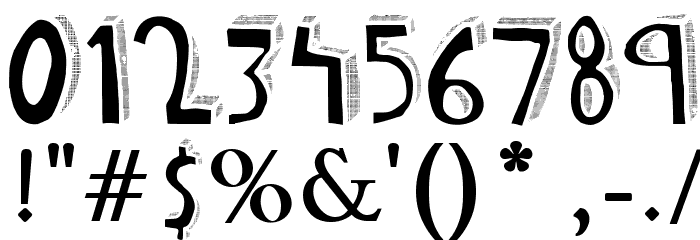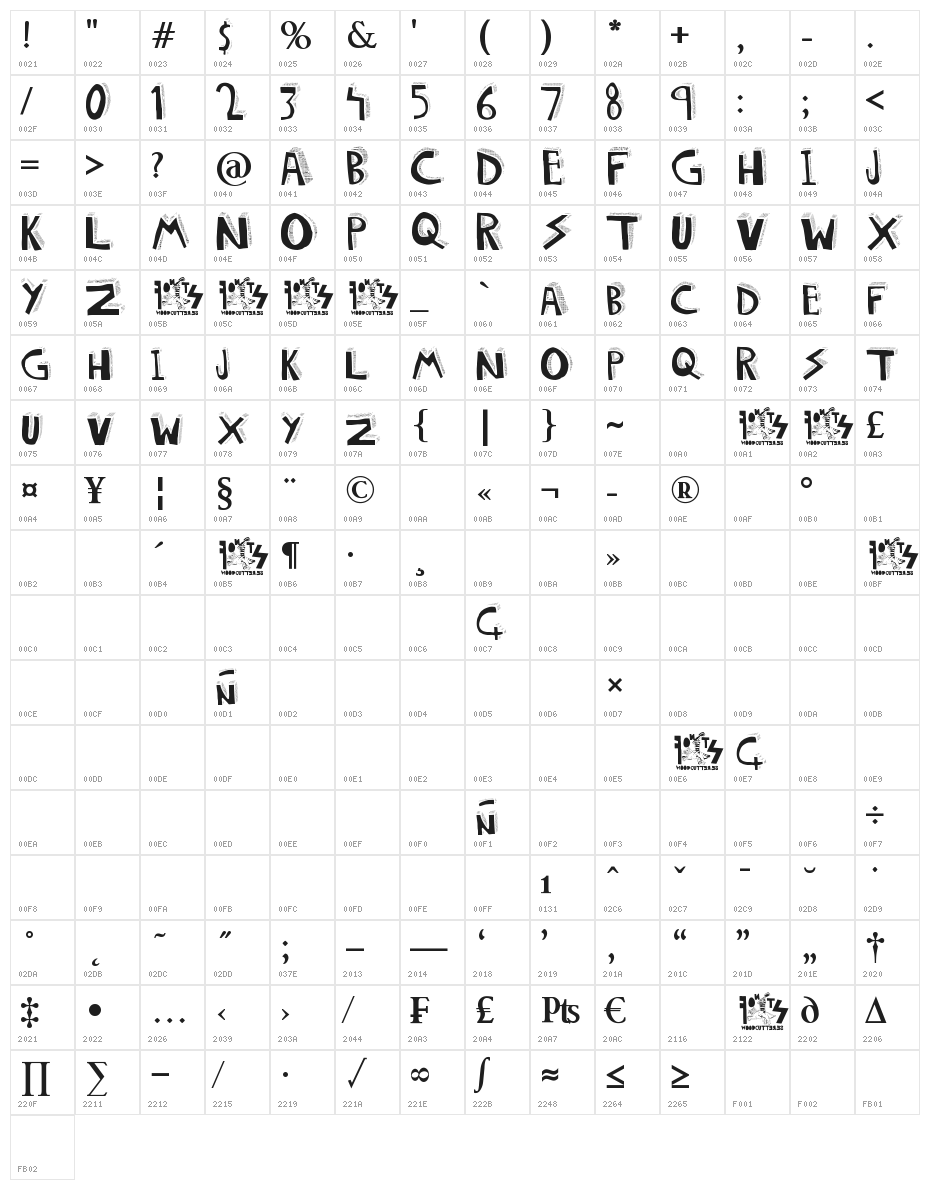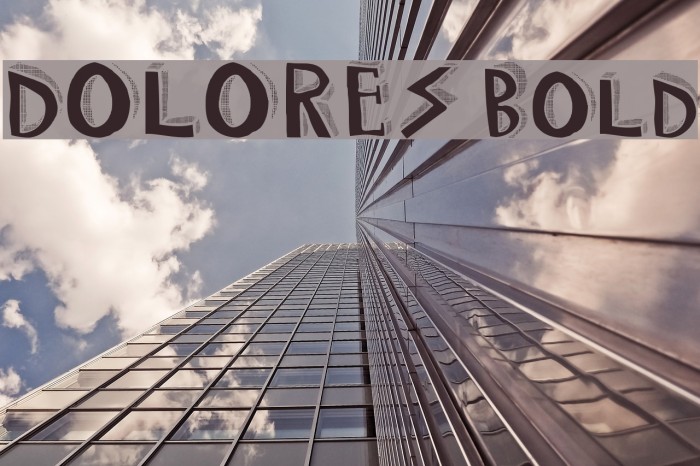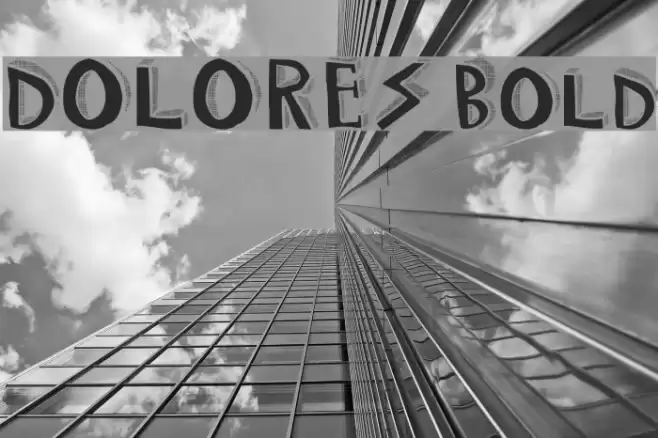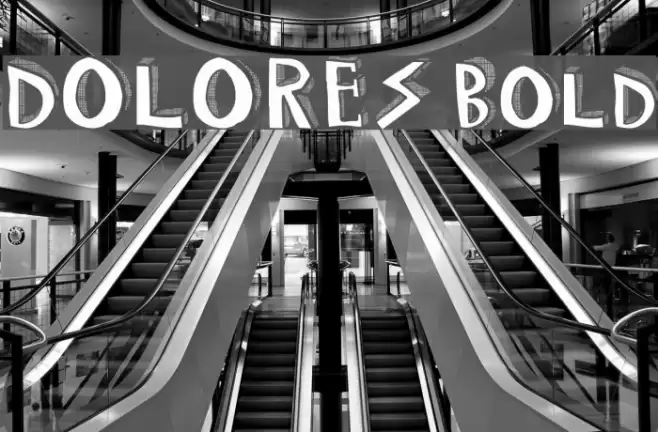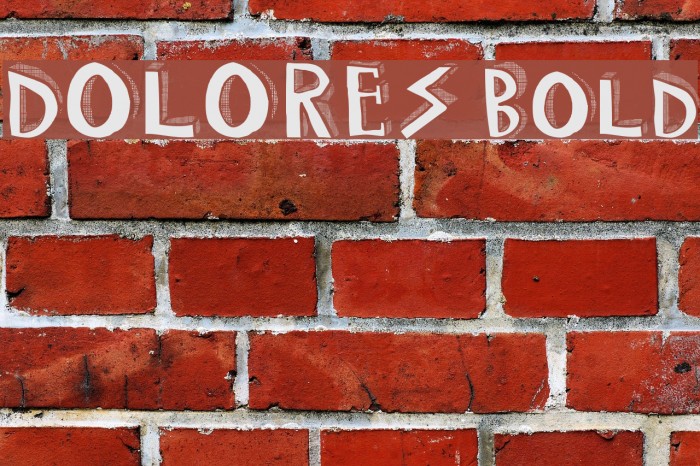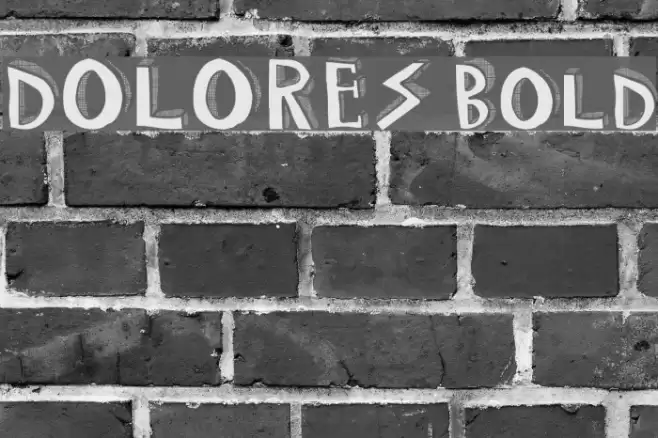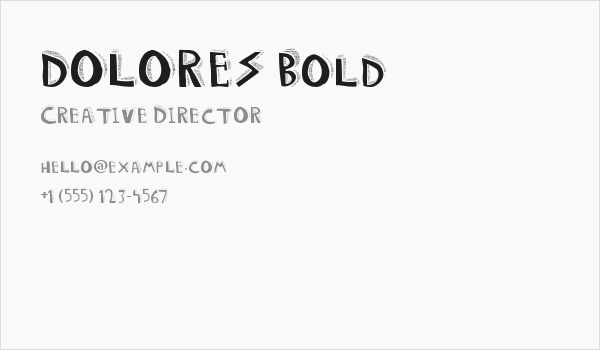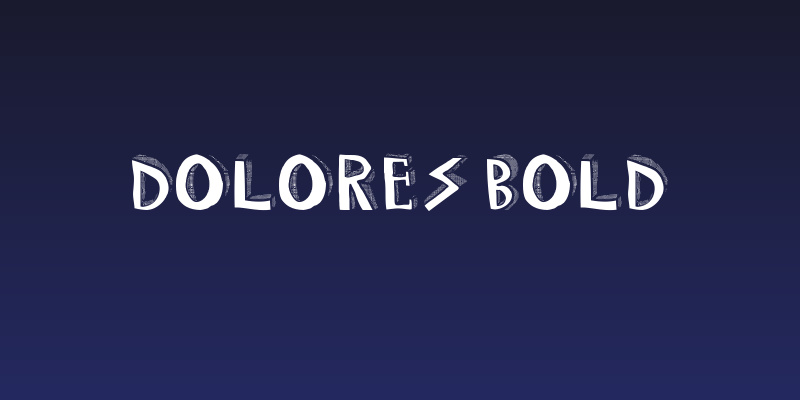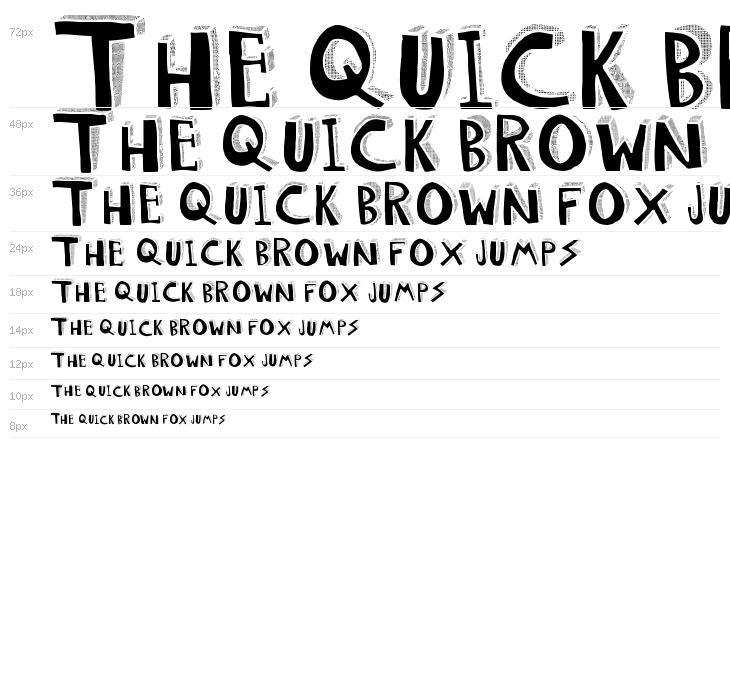
DOLORES Bold Font
DOLORES Bold Description
This font features a bold and dynamic style with a hand-drawn appearance, characterized by its uneven strokes and textured fills. The letters have a playful and artistic vibe, with varying line thicknesses that create a sense of movement and energy. The uppercase and lowercase letters maintain a consistent style, while the numbers and special characters complement the overall design. The font's unique texture and boldness make it stand out, ideal for creative and eye-catching designs.
| Proposed Projects | Ideal for posters, album covers, branding projects, and any design that requires a bold, artistic touch. |